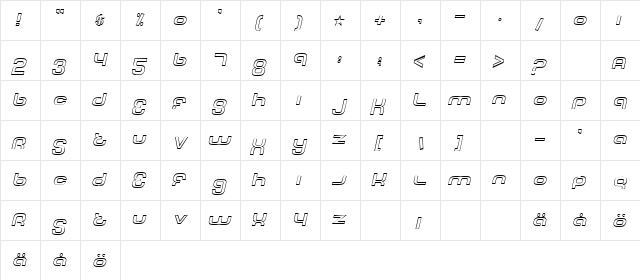
Tech Font Outline Italic
Design Context for Tech Font Outline Typeface
Tech Font Outline channels digital-age aesthetics through its sharp, structured letterforms — ideal for brands that want to signal innovation. The slanted form adds forward momentum and visual energy.